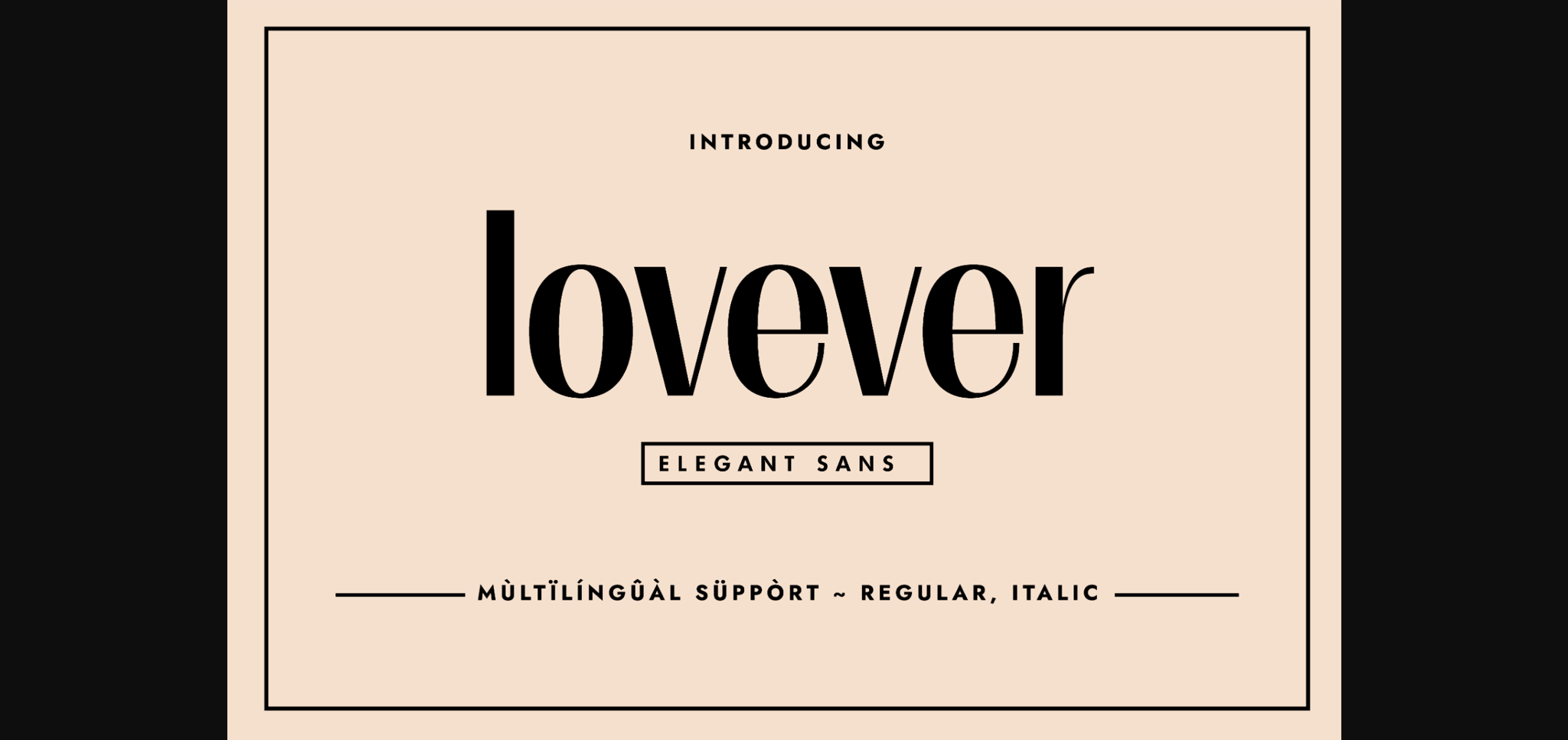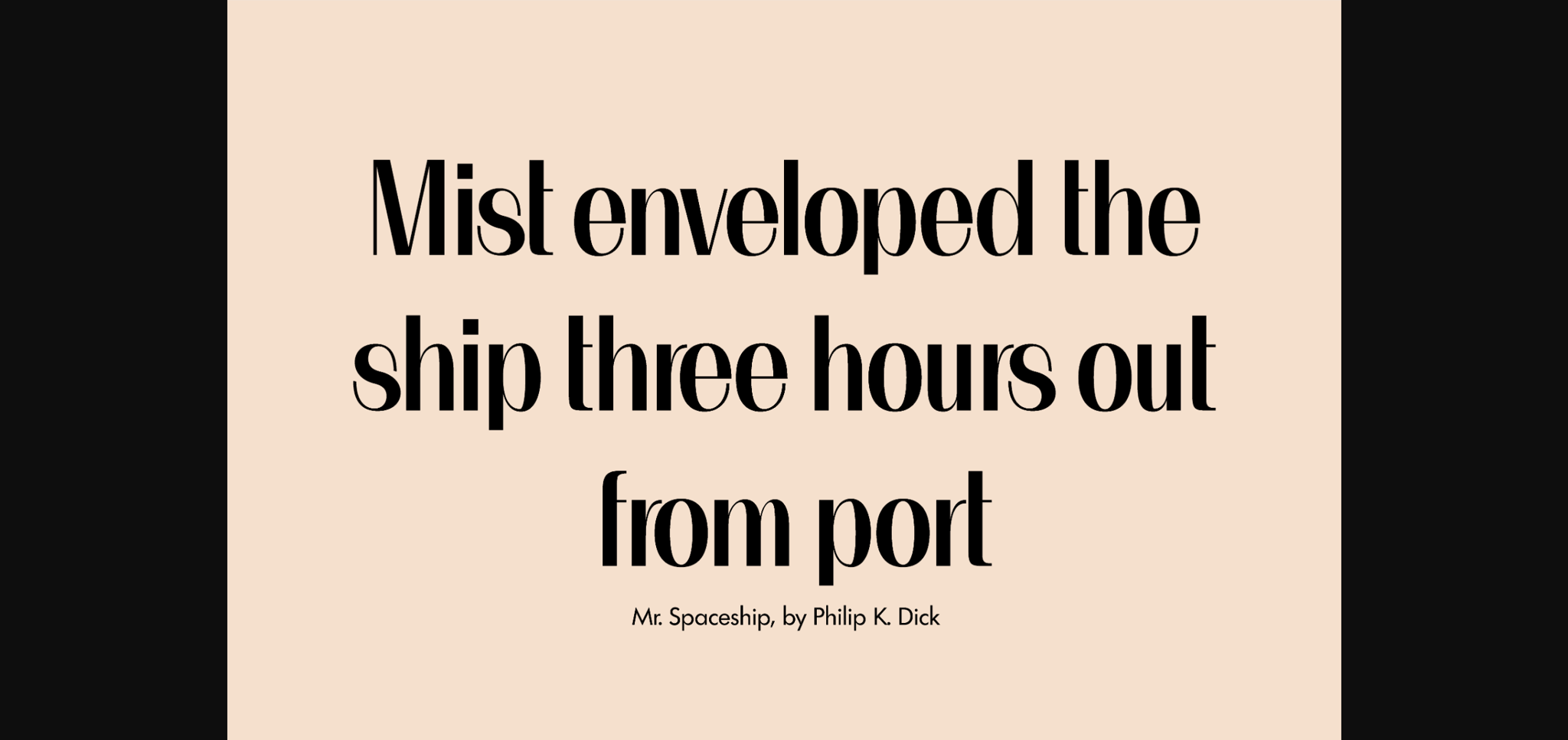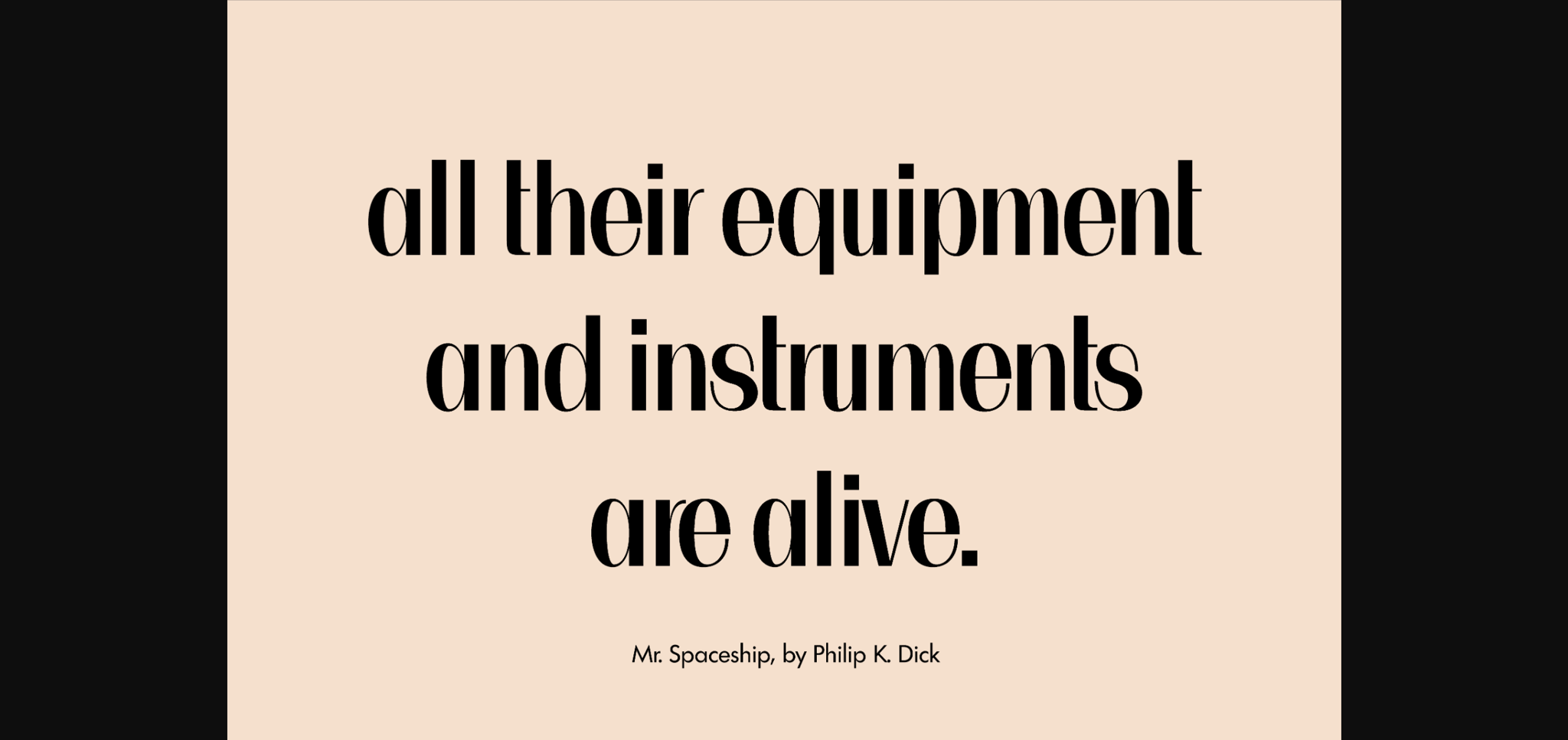
About Lovever Font
Introducing lovever, a sans-serif font that embodies delicacy, fluidity, and minimalism. With graceful and minimalist letterforms, lovever brings a timeless elegance to your design projects. Versatile and contemporary, it is perfect for branding, editorial design, invitations, and more. Embrace the simplicity and sophistication of lovever to elevate your creations with a touch of modern charm.